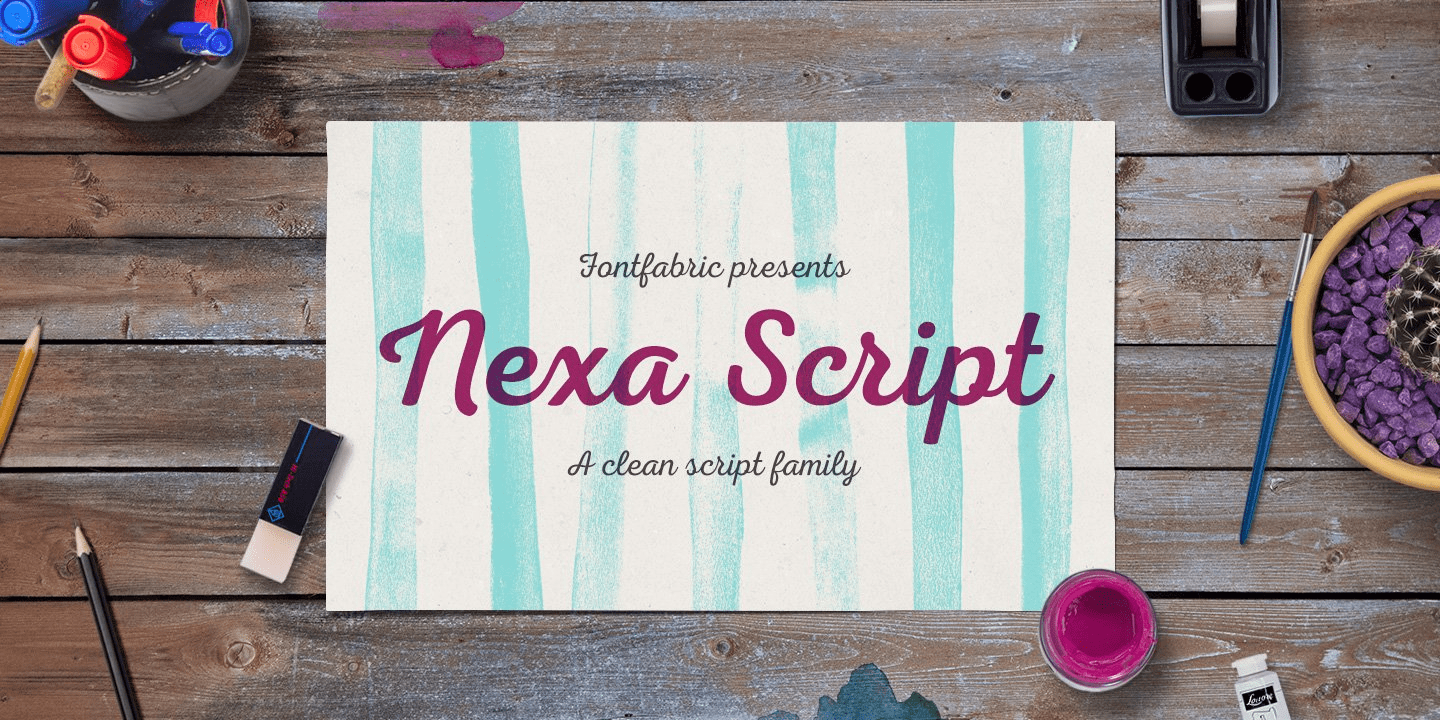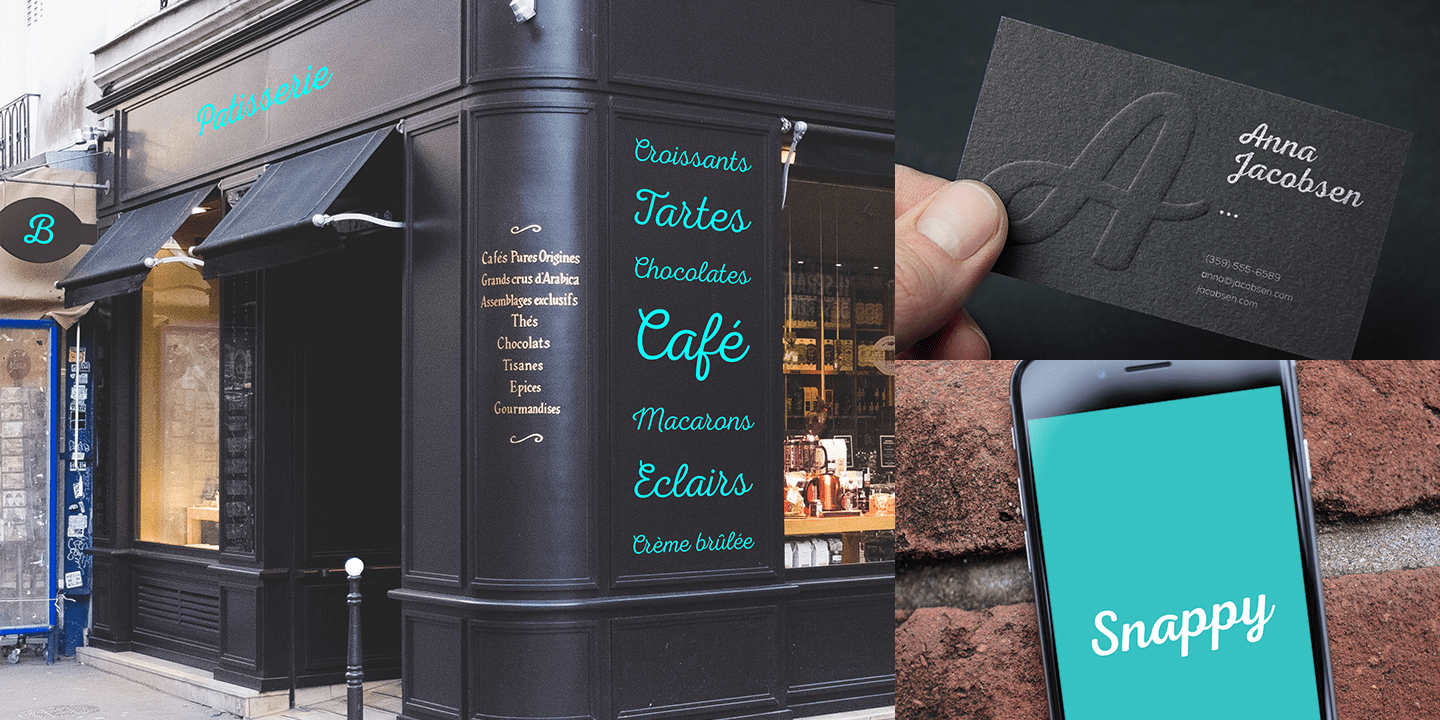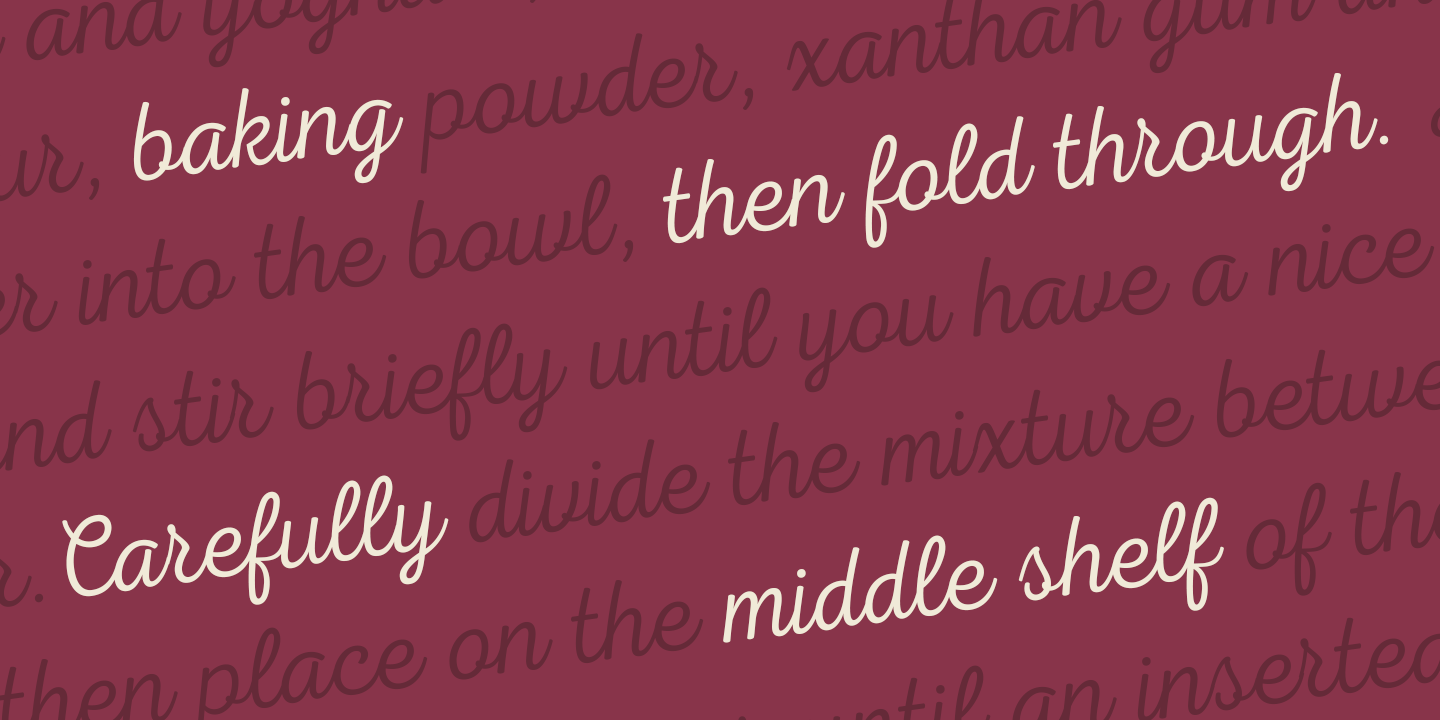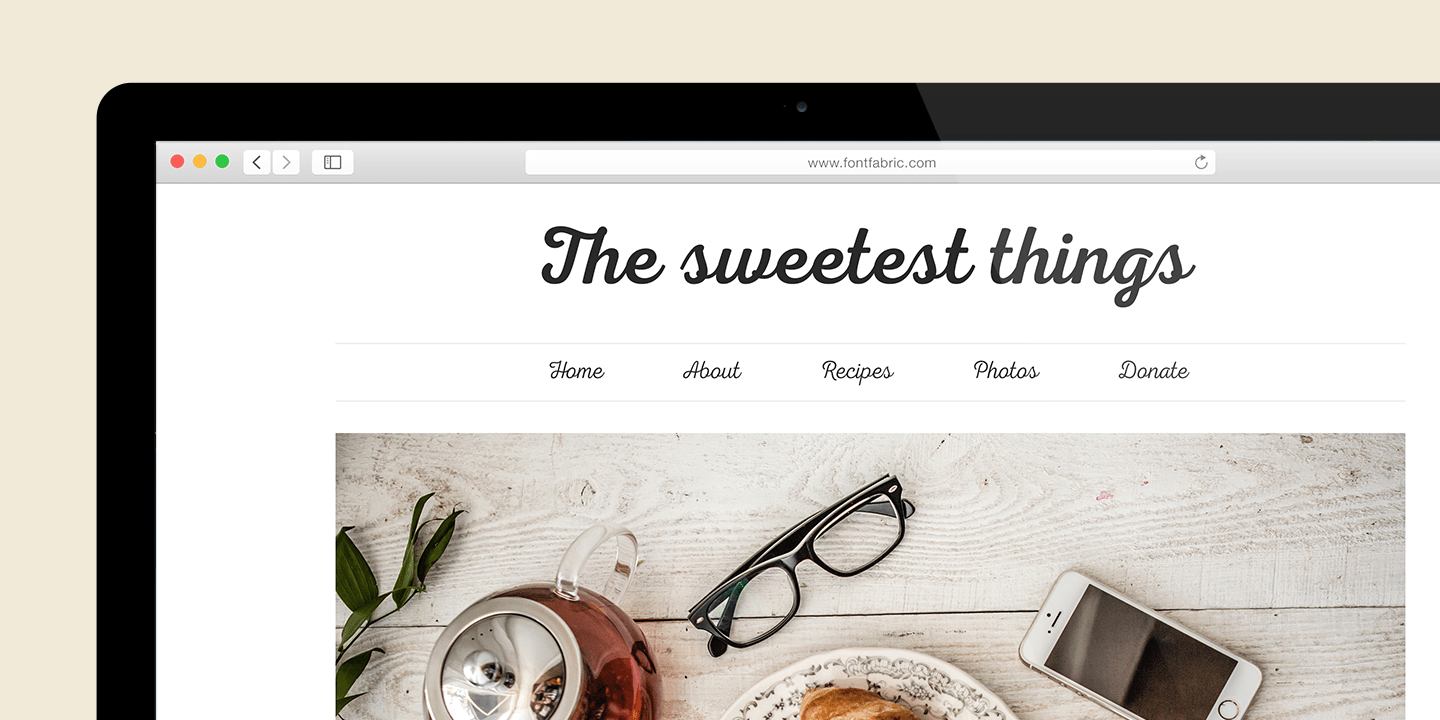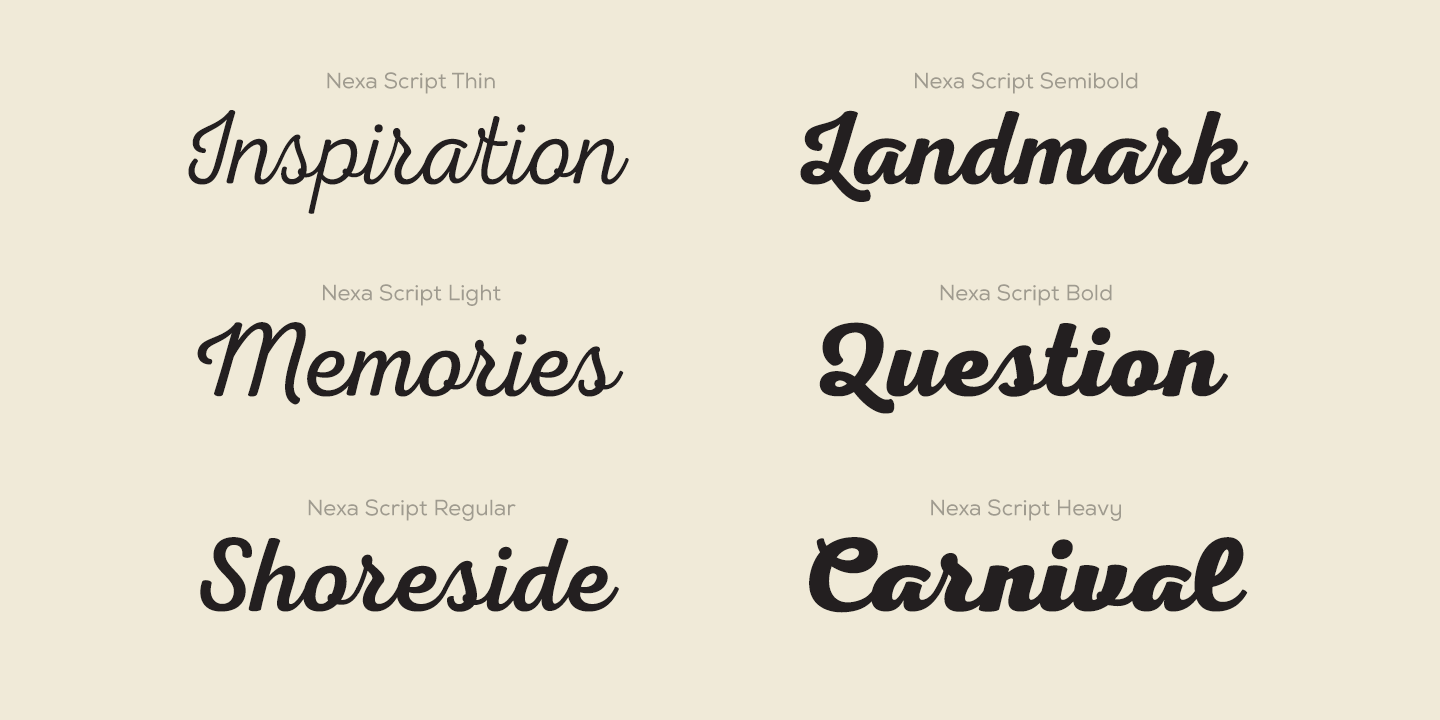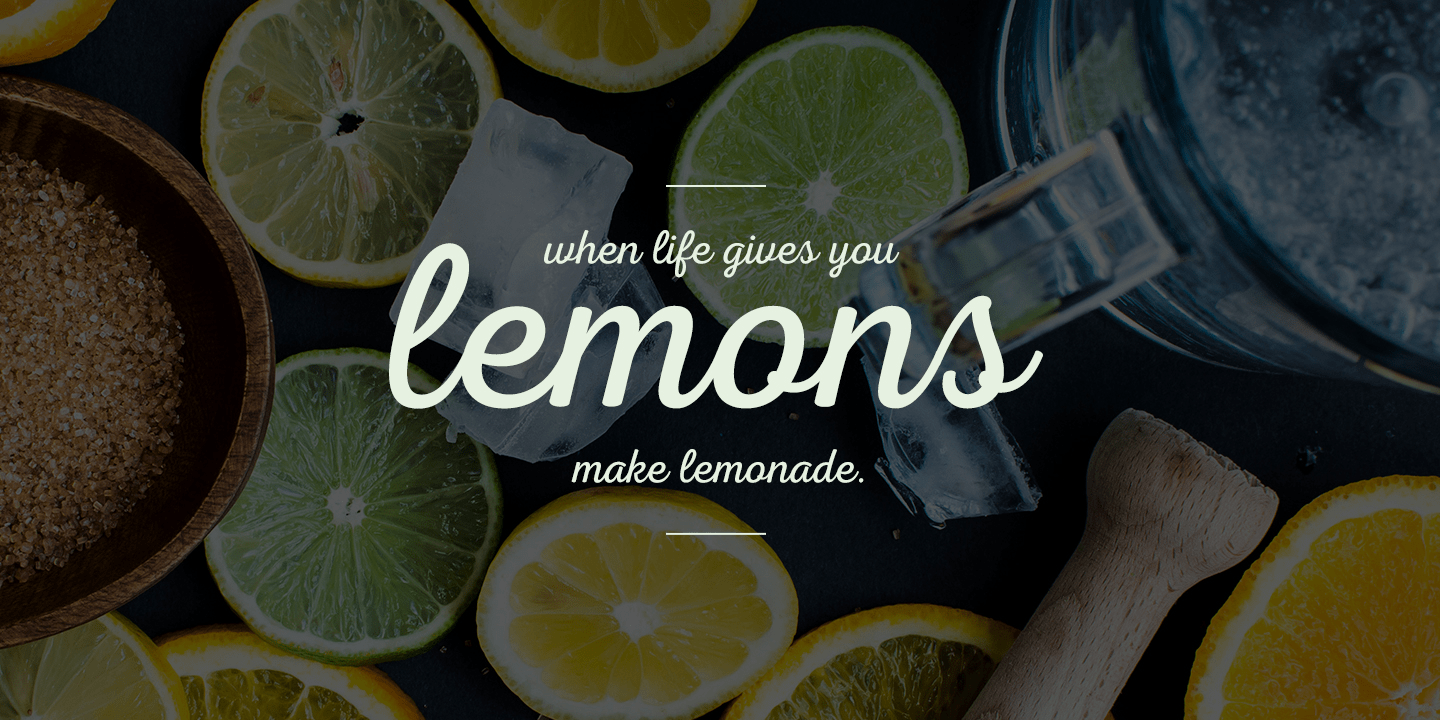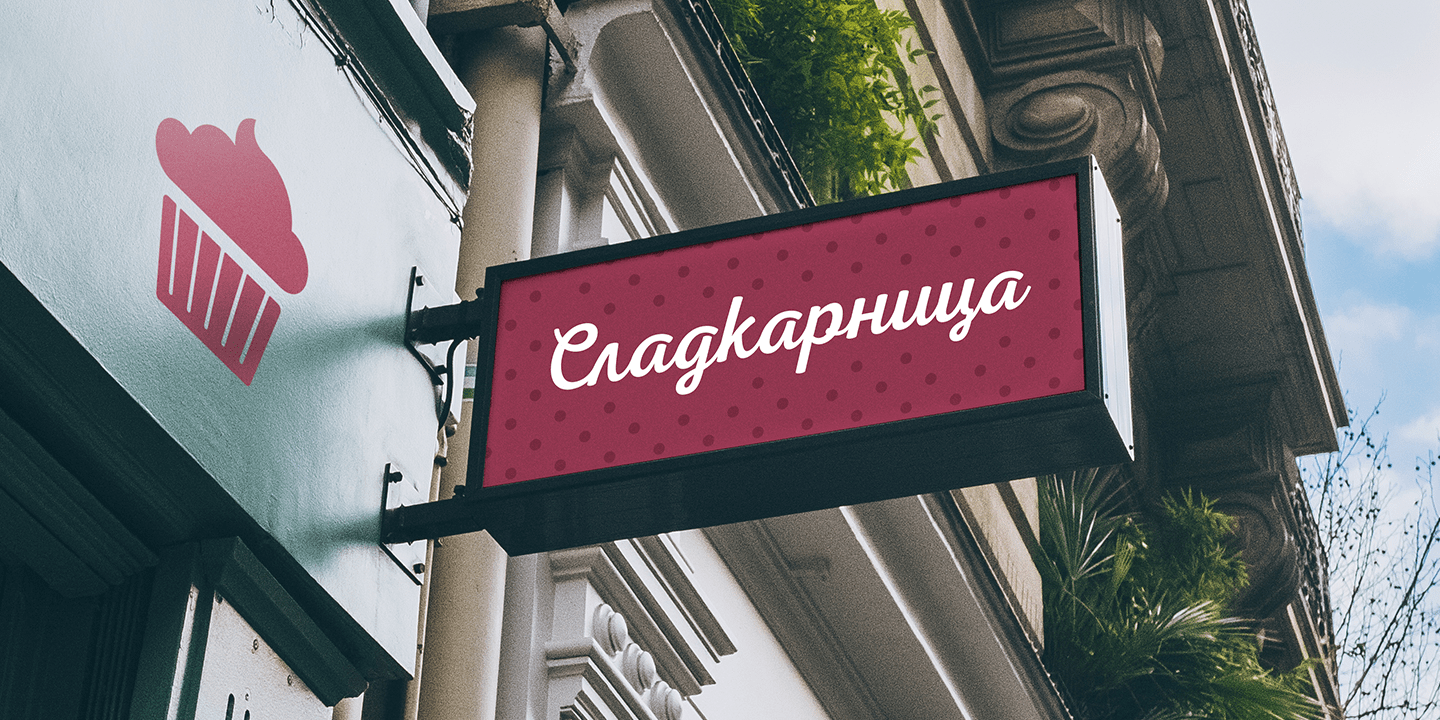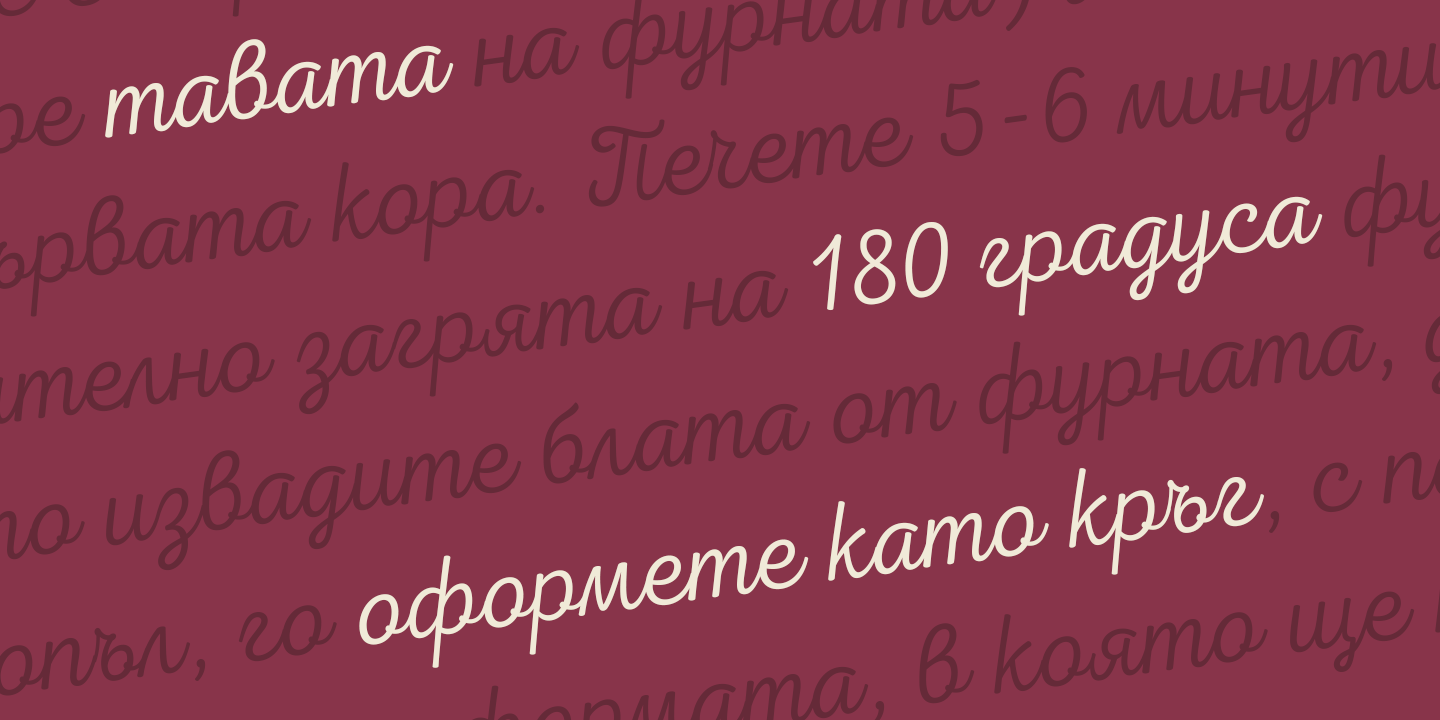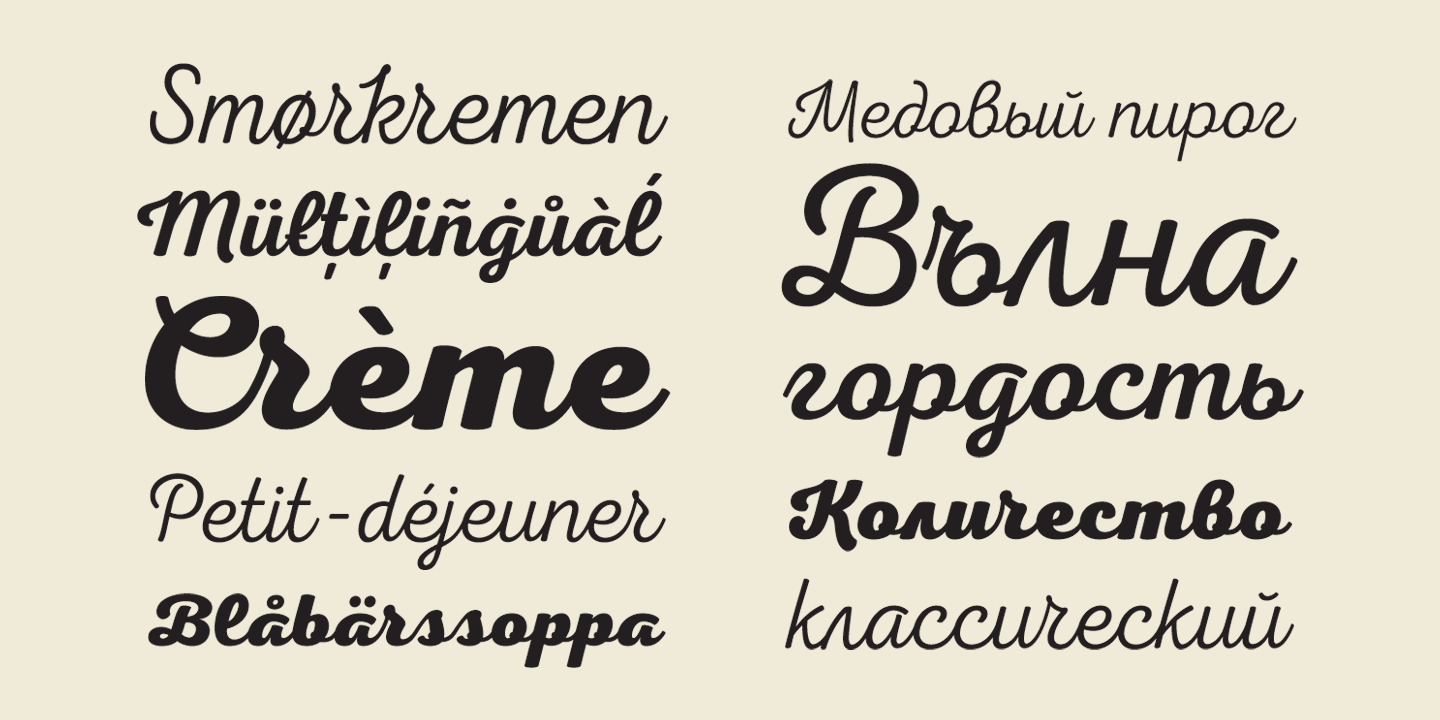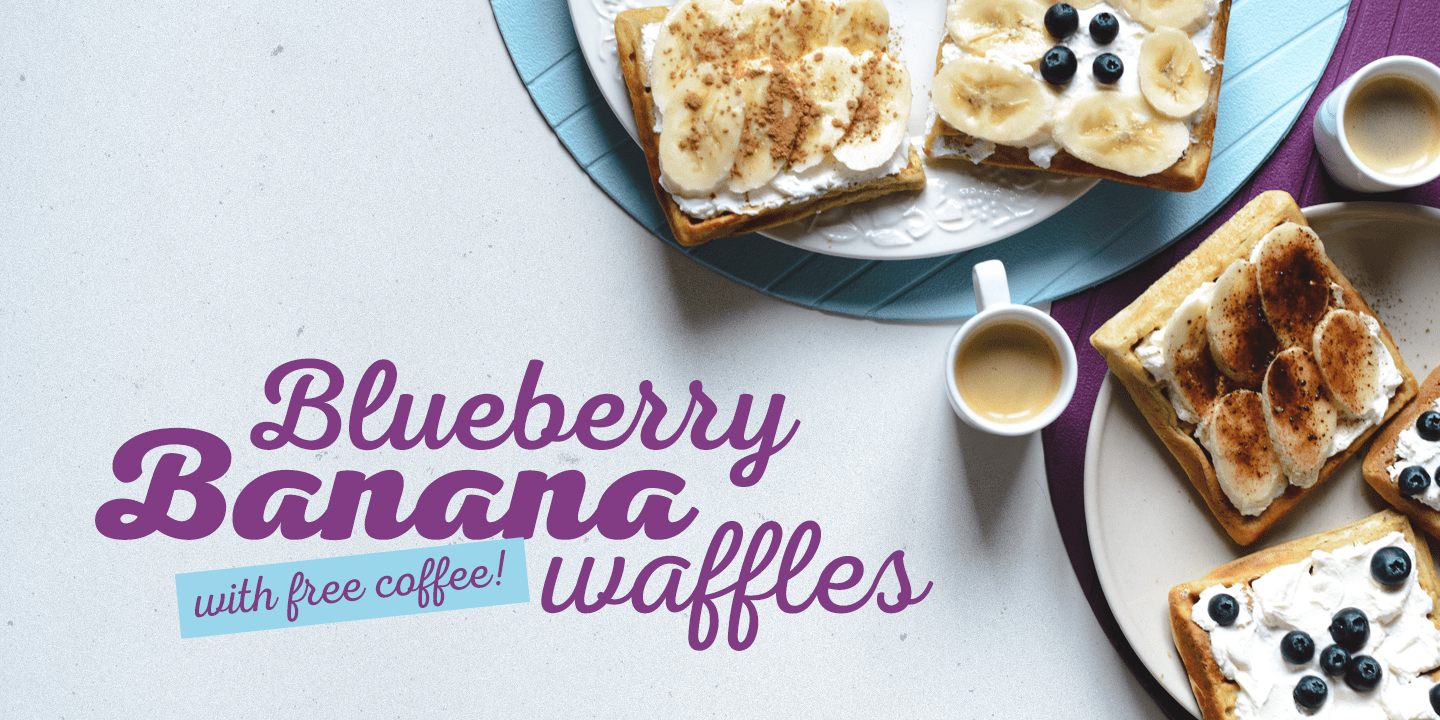
Nexa Script
Font Family by Fontfabric
Nexa Script is a clean version of the famous multifaceted font system Nexa Rust. All fonts from the family was successfully designed to match perfect to the other two members of this huge font system - Nexa and Nexa Slab. You can be sure that Nexa Script is equipped with the most advanced typographic Open Type features such as extended sets of ligatures, fractions, alternate characters, superscripts and subscripts, etc. The font family is most suitable for headlines of all sizes, as well as for text blocks that come in both maximum and minimum variations. Nexa Script font styles are applicable for any type of graphic design in web, print, motion graphics etc and perfect for t-shirts and other items like posters and logos.